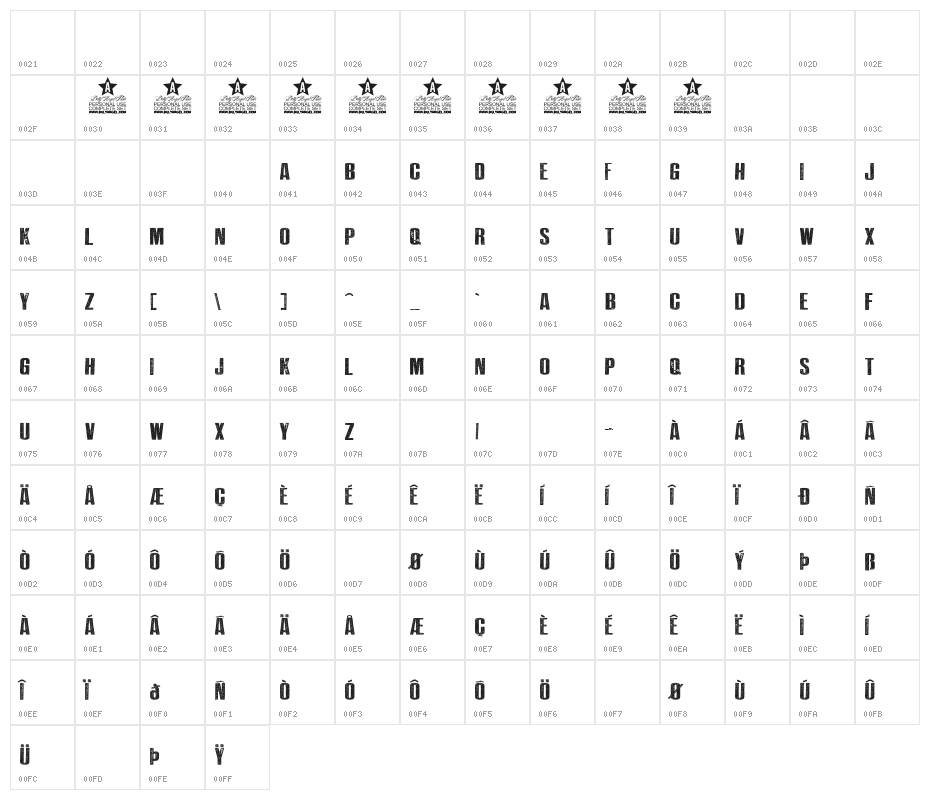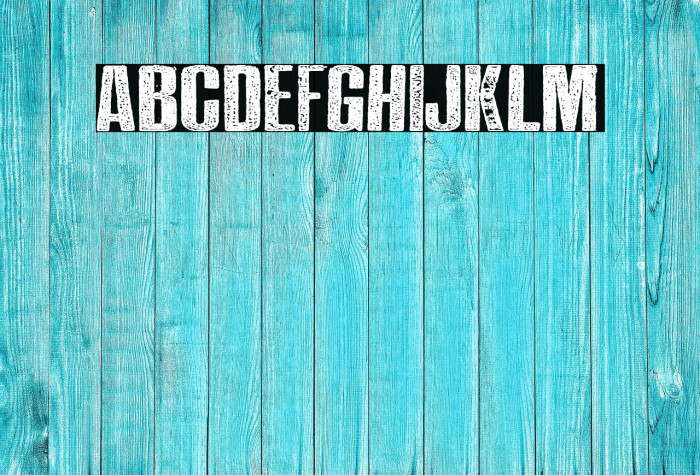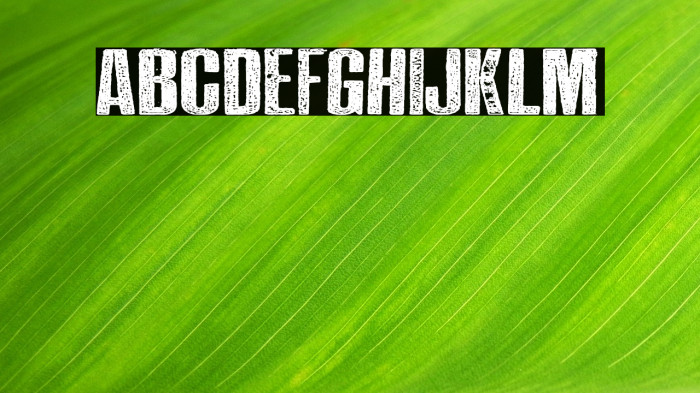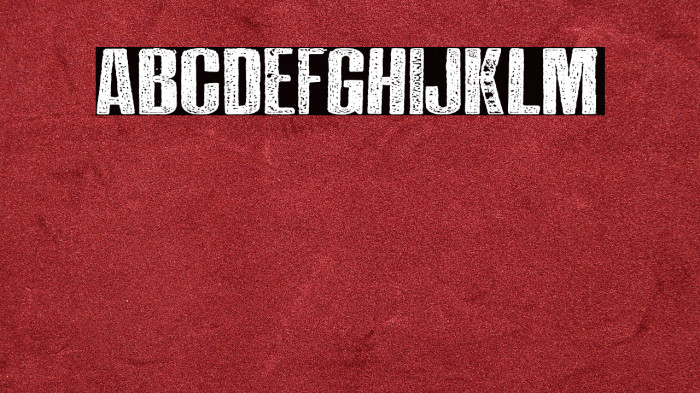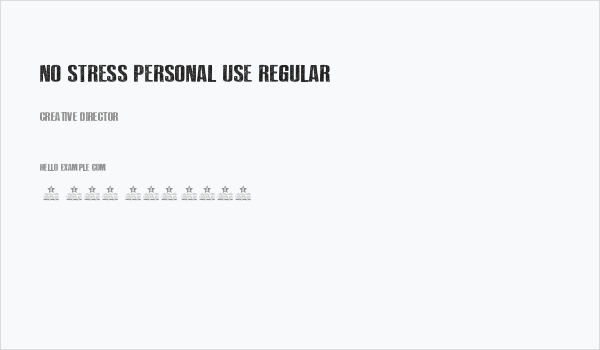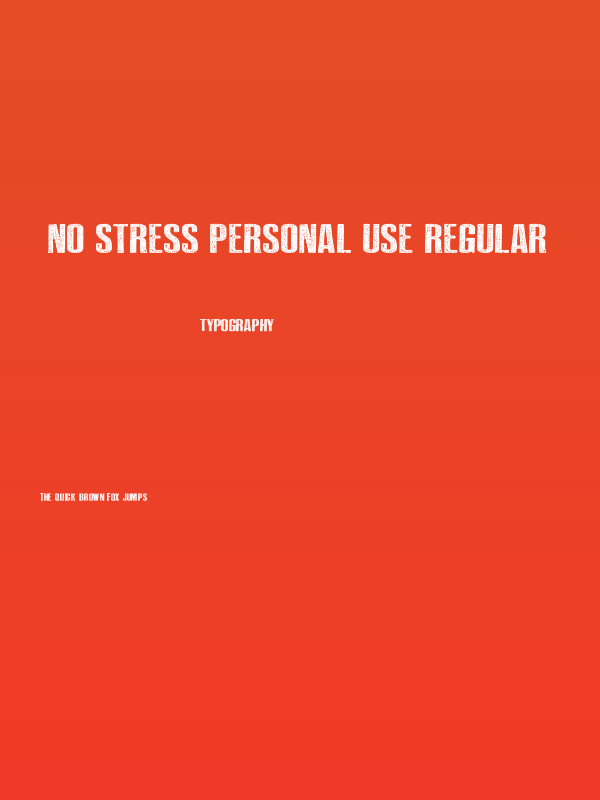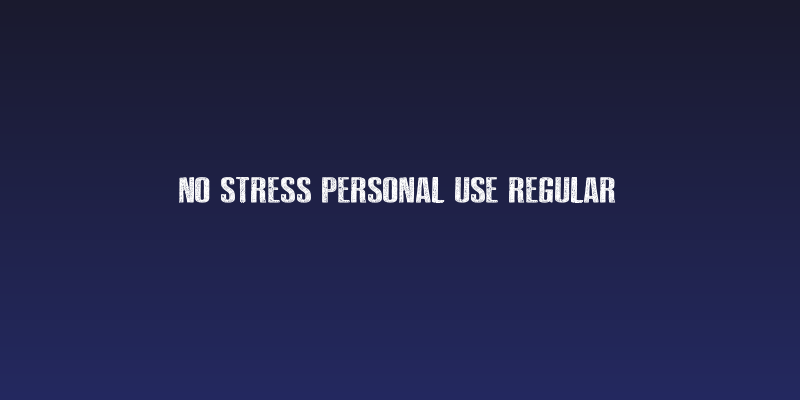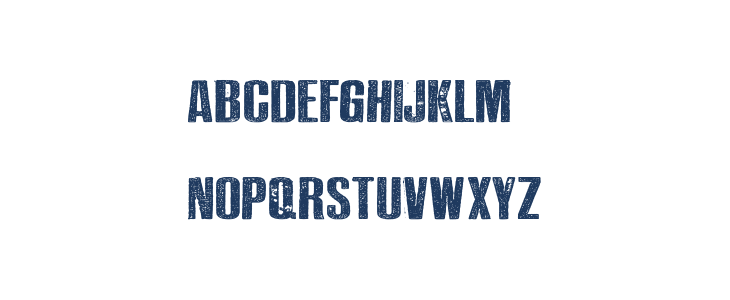
NO STRESS PERSONAL USE Regular Font
NO STRESS PERSONAL USE Regular Description
This font features a bold, distressed style with a textured appearance, giving it a rugged and vintage feel. The uppercase letters are prominently displayed, each character exhibiting a worn, grunge effect that adds depth and character. The font's design is consistent across all letters, maintaining a uniform look while emphasizing its decorative nature. The rough edges and uneven texture contribute to its unique aesthetic, making it ideal for projects that require a bold statement or an edgy, retro vibe.
| Proposed Projects | Ideal for posters, album covers, branding, and any project needing a bold, vintage aesthetic. |